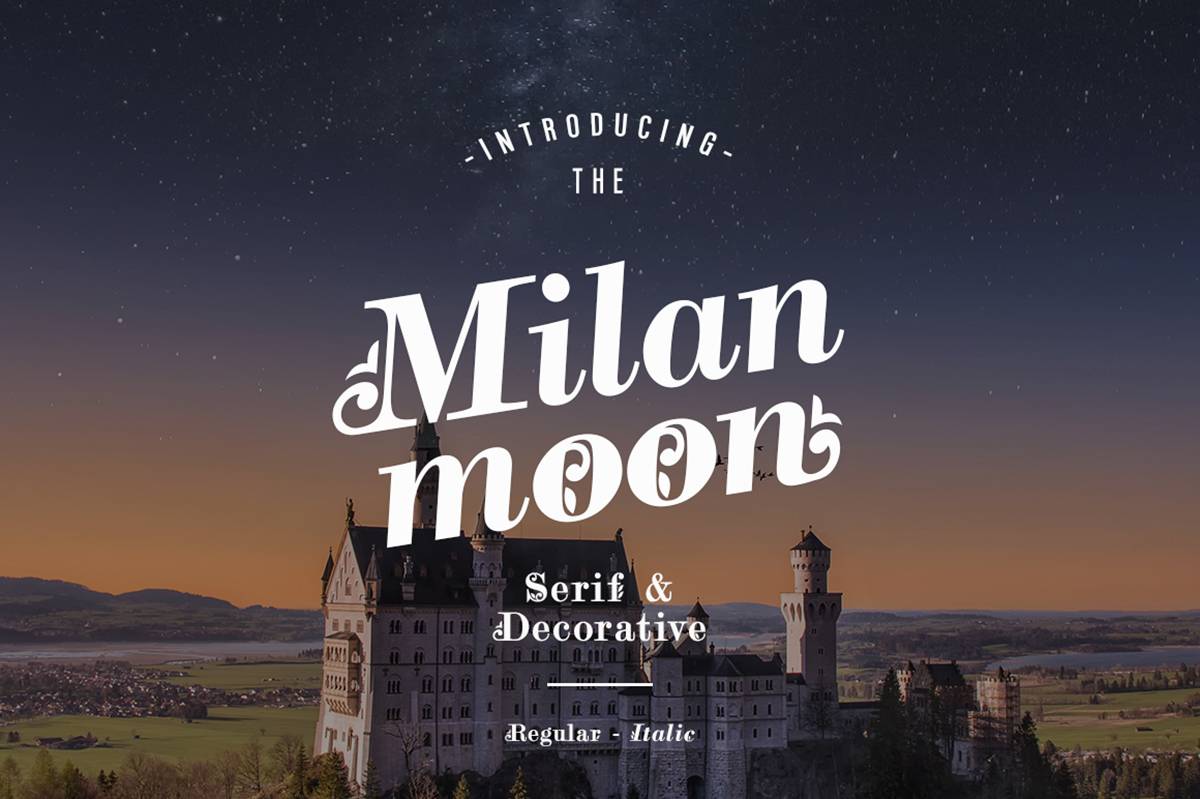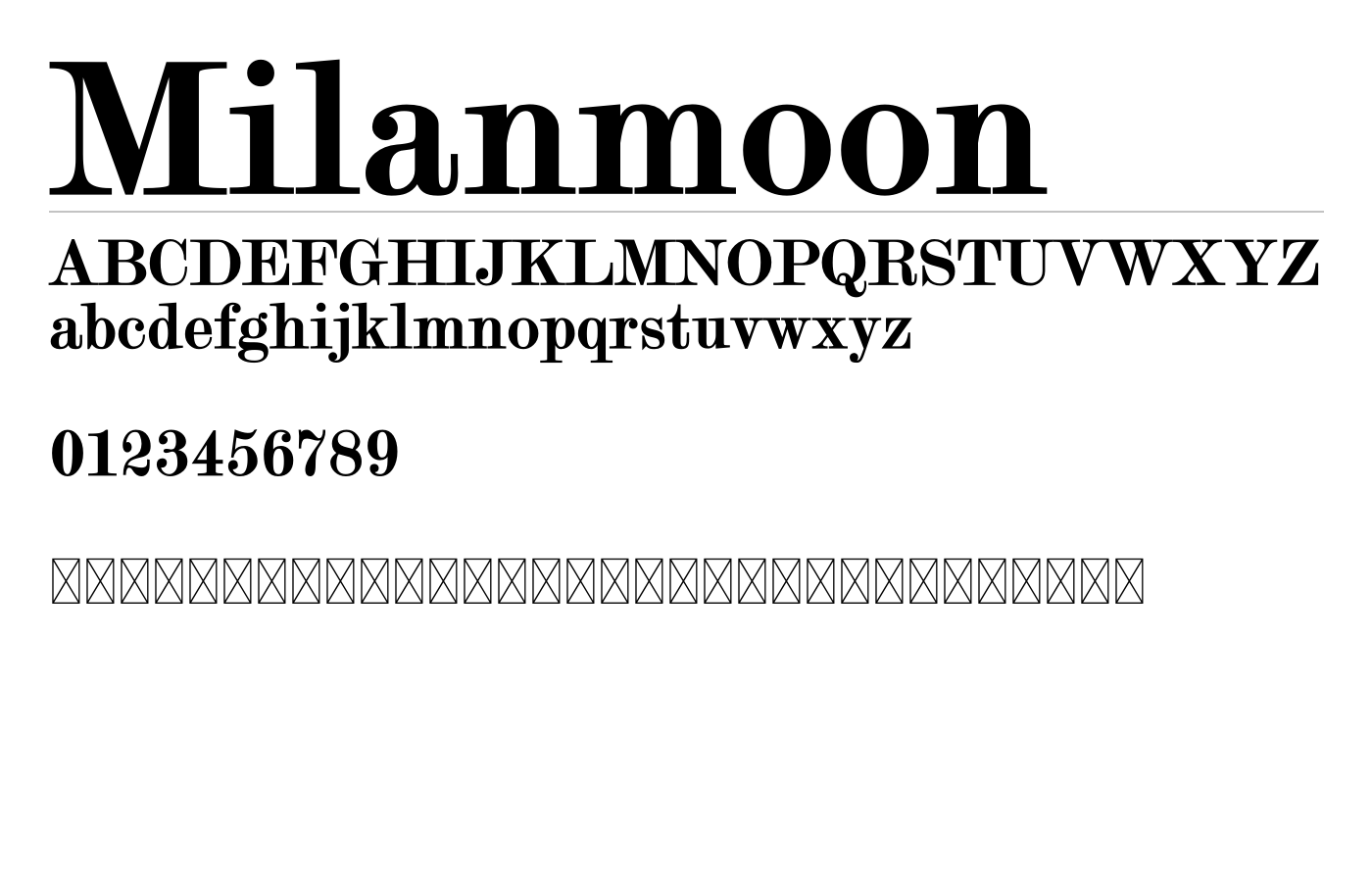
Milanmoon is a classic serif font with a strong, elegant presence, featuring high contrast between thick and thin strokes and distinctive bracketed serifs that give it a refined, sophisticated look. Its balanced proportions and clear letterforms make it ideal for formal branding, editorial headlines, and luxury packaging, where a timeless and authoritative style is desired.
Milanmoon Font
About Milanmoon Font